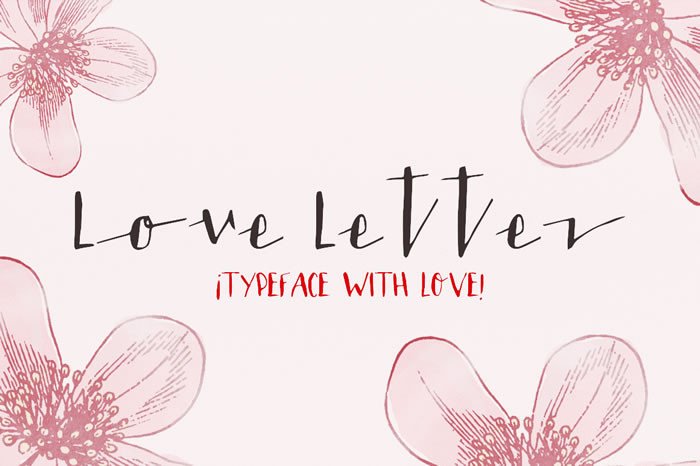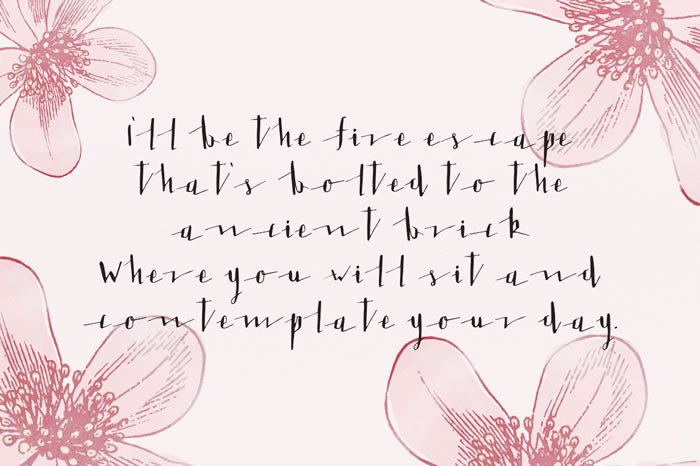
Love Letter Font
A lovely font which is easy to play with and can be used perfectly for logo’s, invitations, posters, quotes, letterheads, birthdays and much more